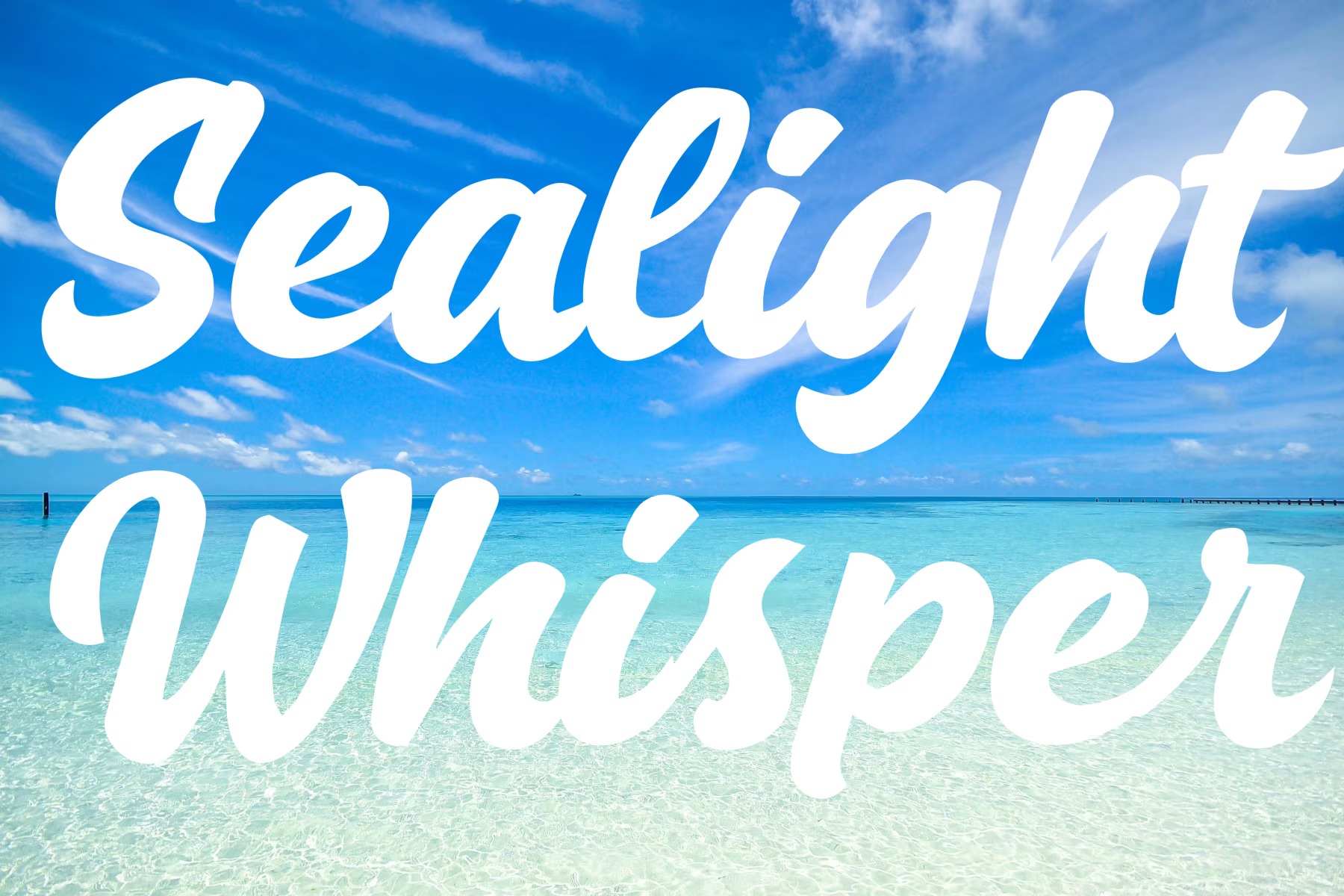
Sealight Whisper Font
Sealight Whisper Font is a professionally designed typeface that delivers clarity, structure, and consistent performance across various design applications. Sealight Whisper is a graceful and expressive handwritten script font with a soft, flowing character. Its natural strokes and delicate curves make it perfect for quotes, branding, invitations, social media graphics, and personal creative projects. The font is available for free personal use, offering a warm and elegant touch to any design.